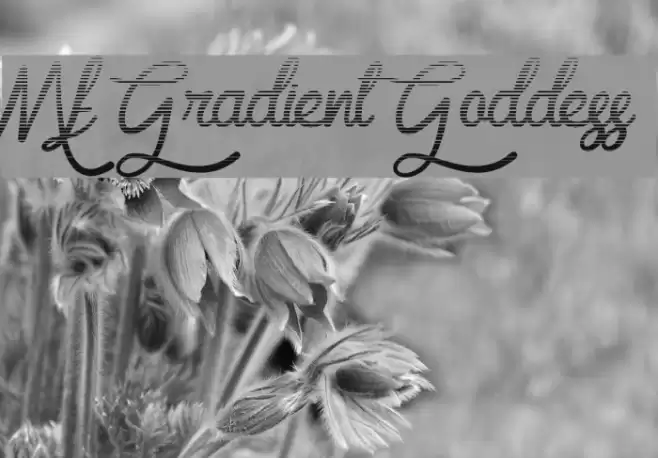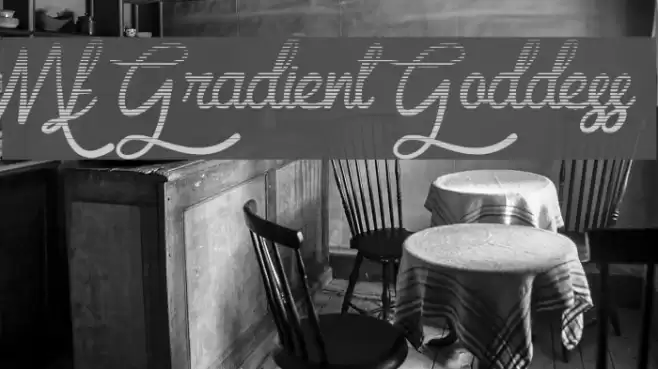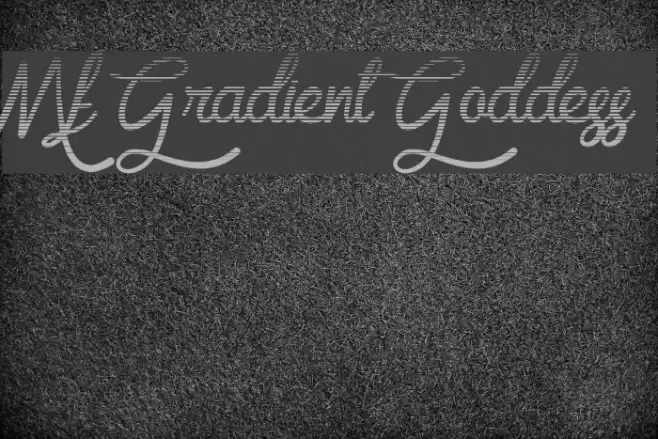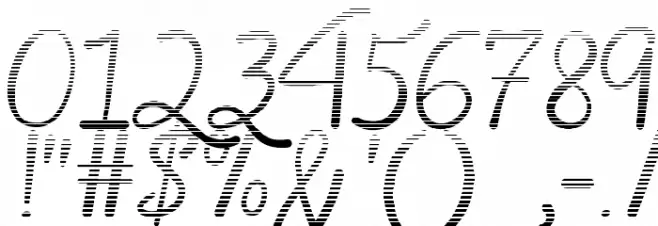
Mf Gradient Goddess Font
Mf Gradient Goddess Description
This font features a decorative script style with a unique gradient effect created by horizontal lines. The letters are elegantly curved with a flowing, cursive appearance, giving it a sophisticated and artistic look. The uppercase letters are particularly ornate, with additional flourishes that enhance their visual appeal. The lowercase letters maintain a consistent style, complementing the uppercase with smooth transitions and rounded forms. Numbers and special characters are designed to match the overall aesthetic, ensuring a cohesive appearance across all text elements.
A decorative script font with a gradient effect and elegant, flowing curves from Uncategorized fonts.
- Proposed Projects: Ideal for wedding invitations, luxury branding, artistic posters, and elegant packaging designs.
- Use Case: Logos, Headlines, Invitations